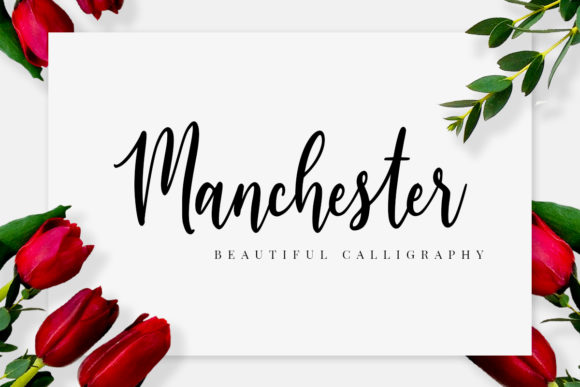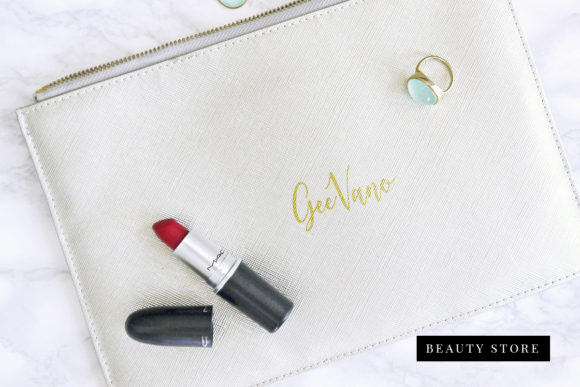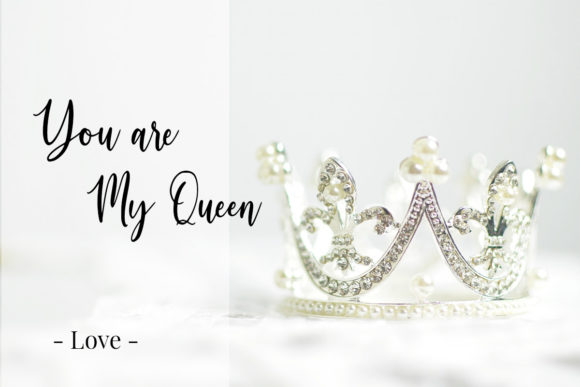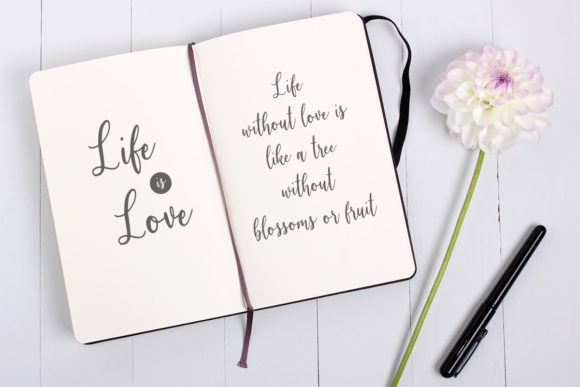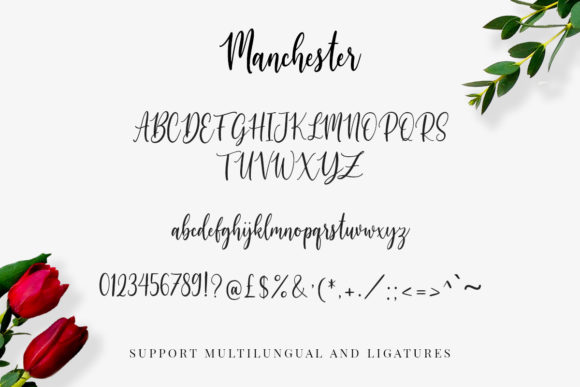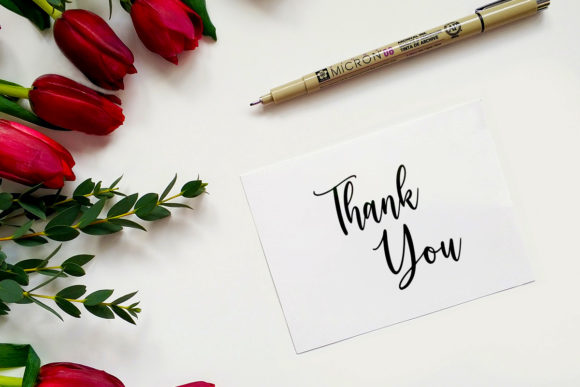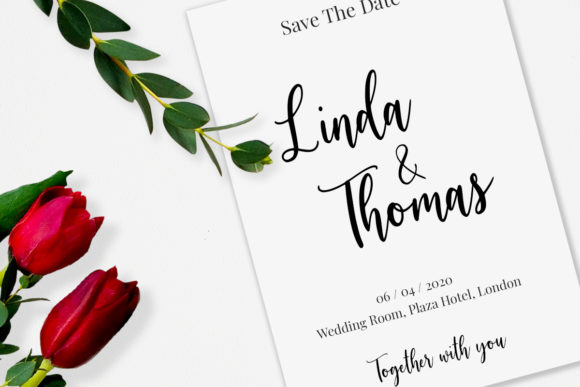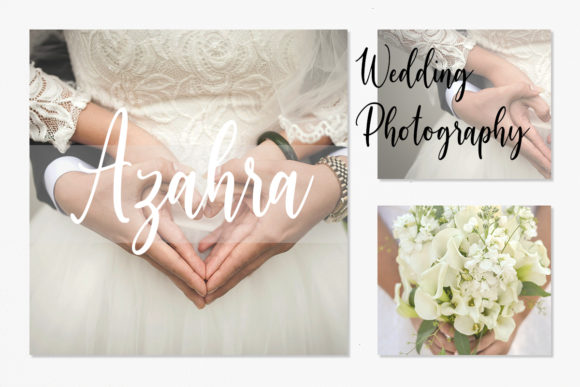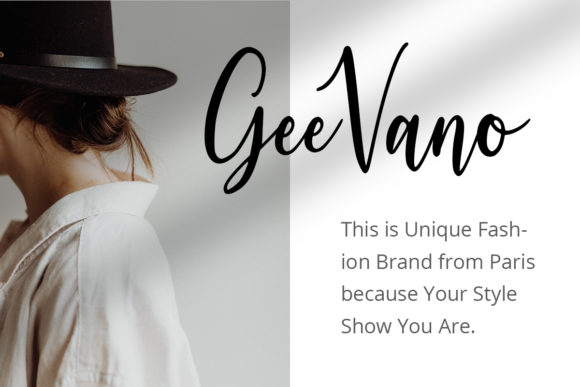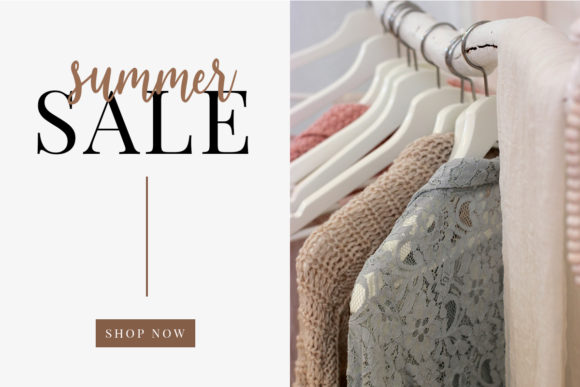
Manchester Font
About Manchester Font
Manchester simplifies elegance into one truly outstanding script font. It will elevate a wide range of design projects to the highest level, be it branding, headings, wedding designs, invitations, signatures, logos, labels, and much more!